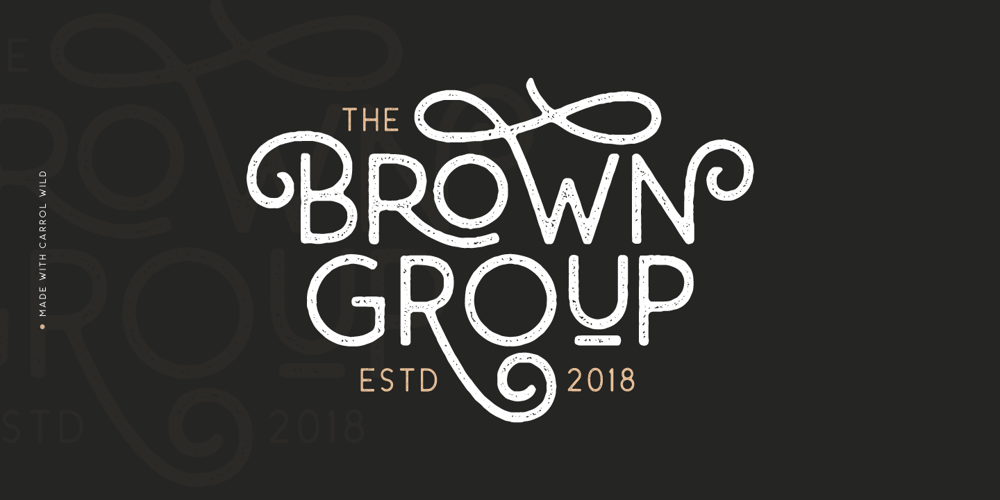
Carrol Wild Font Family was designed by Sarid Ezra and published by Sarid Ezra. Carrol Wild contains 3 styles and family package options. Introducing Carrol Wild, the wild version of Carrol Sans Family!Carrol Wild is a wild and modern sans with a bunch of alternates in each alphabets! Every alphabet have alternates up to 6 kinds! This font fits in any project. You can use it for a tittle, logo, quotes, or become a pairing in any script font. There are three style of this font. Clean, Rough and Stamp. This font also support multi language!What will you get: CarrolWild Clean (OTF & TTF) CarrolWild Rough (OTF & TTF) CarrolWild Stamp (OTF & TTF)